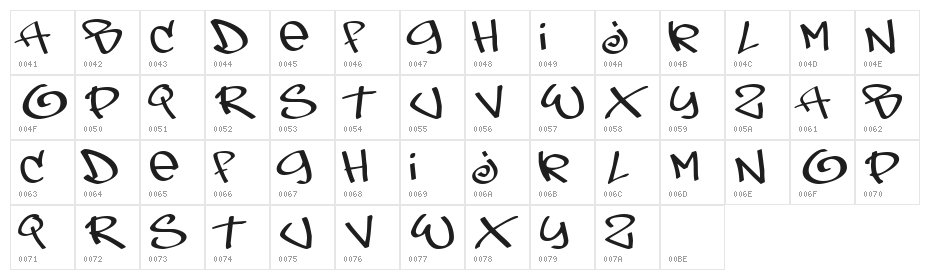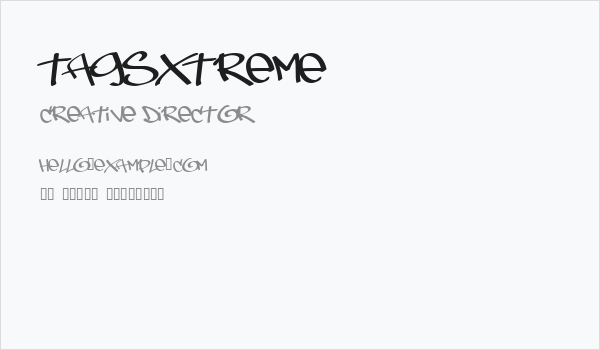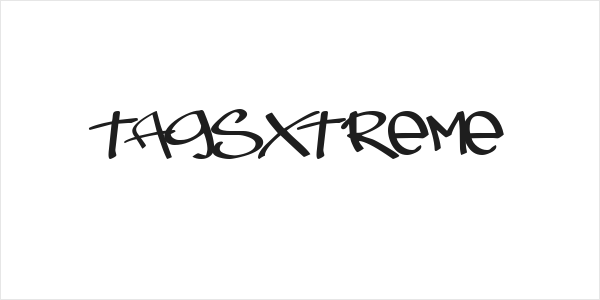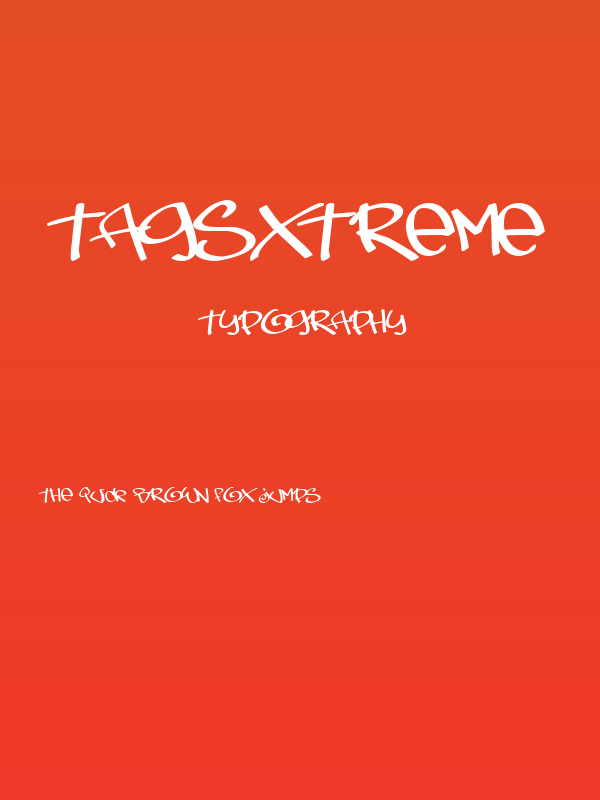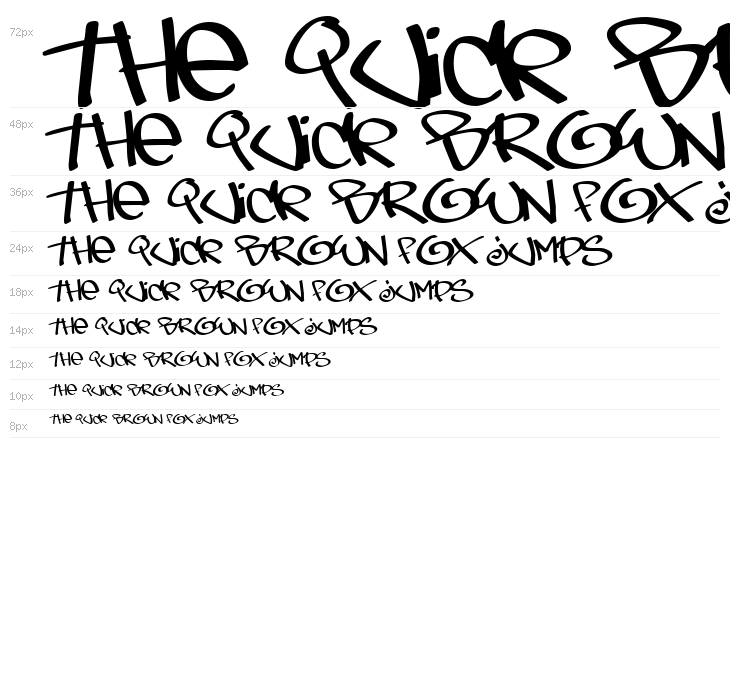
TagsXtreme Font
TagsXtreme Description
This font embodies a bold, graffiti-inspired style with dynamic, sweeping strokes and a playful, urban aesthetic. The uppercase letters exhibit a sense of movement and energy, with exaggerated curves and angular forms that create a sense of rhythm and flow. The lowercase letters maintain this lively character, offering a cohesive look across the alphabet. The font's design is characterized by its thick lines and high contrast, making it highly legible and impactful. It is ideal for projects that require a strong visual presence and a modern, edgy feel.
| Overall Style | Modern, Urban, Edgy |
| Proposed Projects | Perfect for street art designs, urban-themed posters, music album covers, and edgy branding projects. |